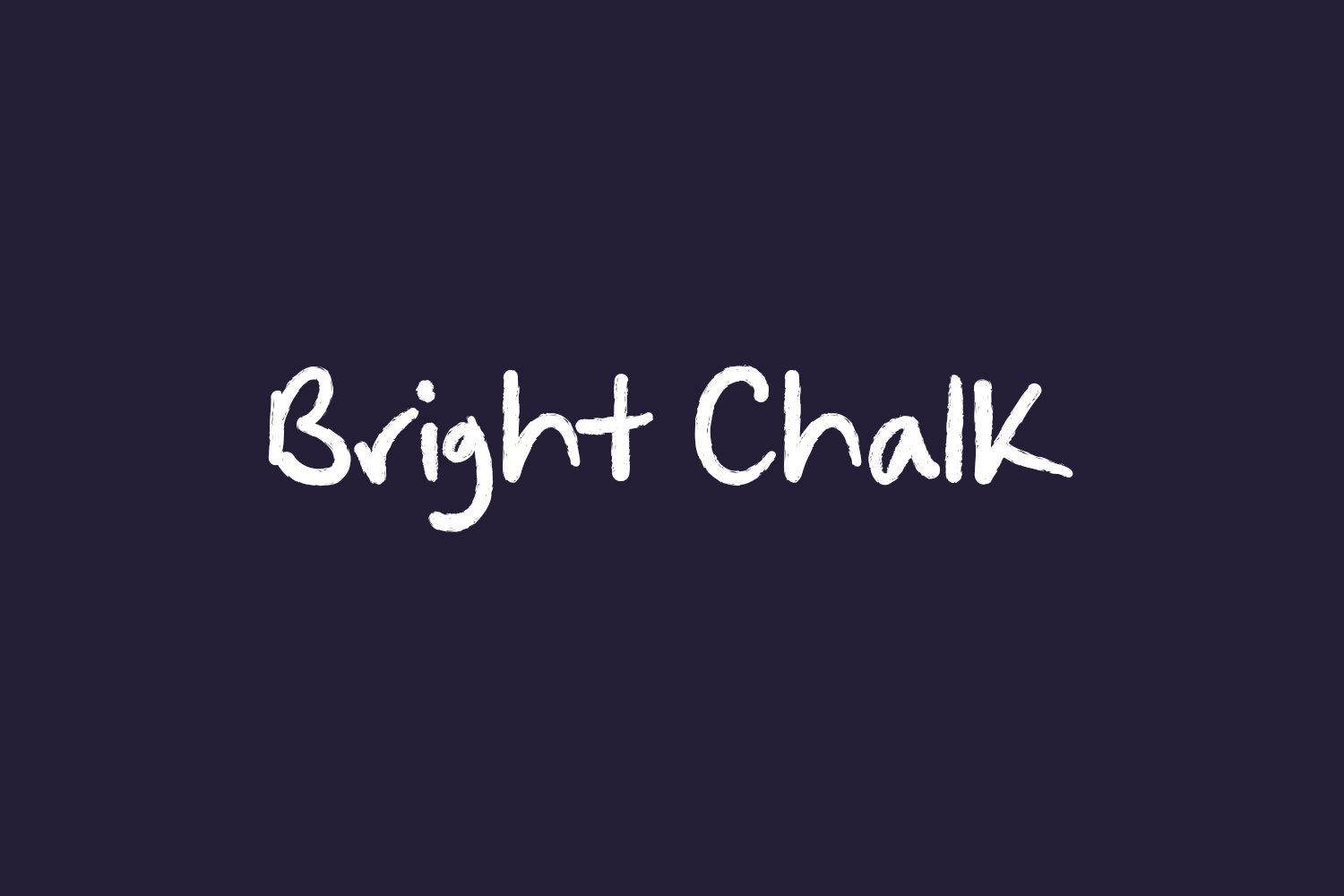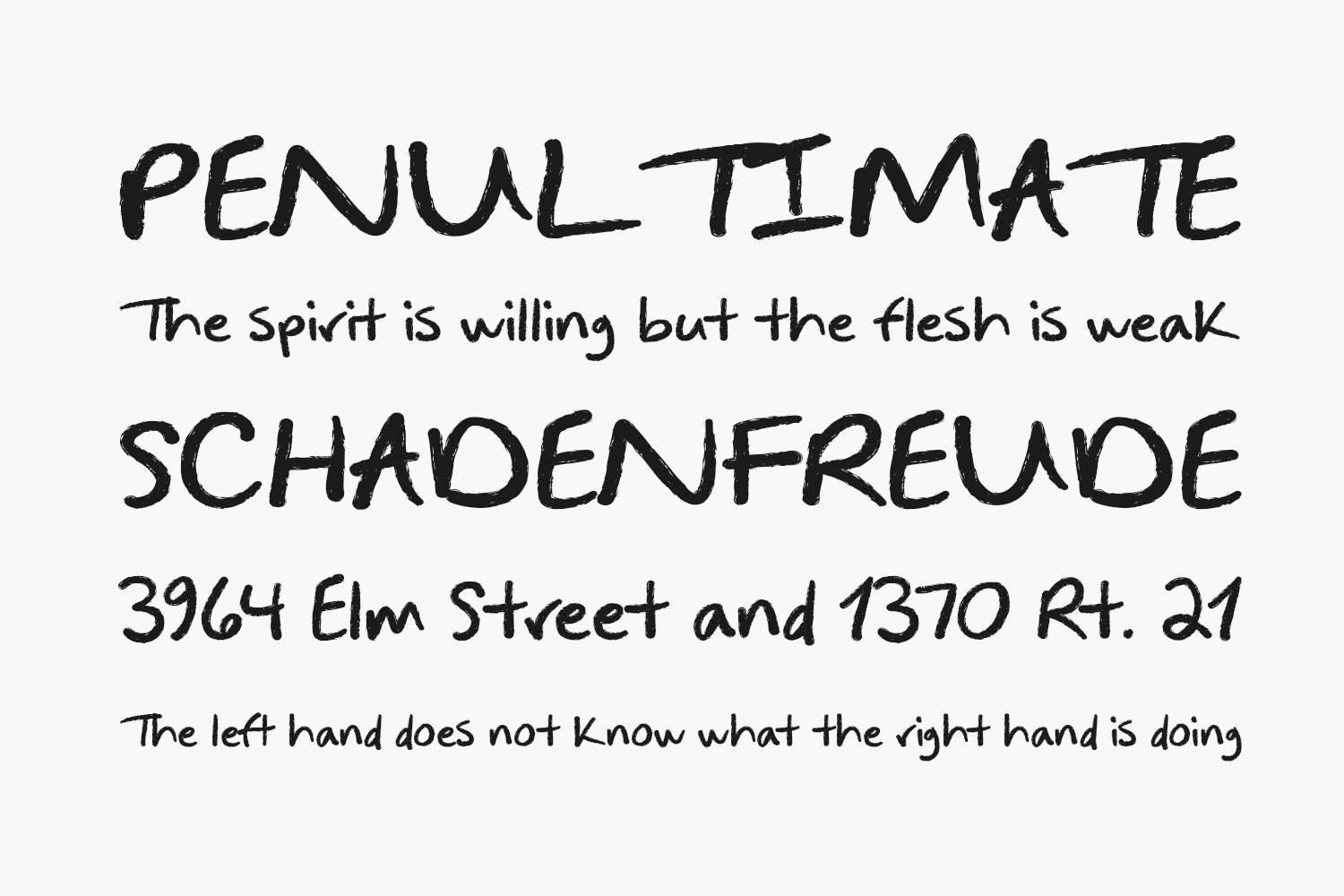
Bright Chalk Free Font is a lively and playful font that embraces the charm of chalk lettering. Its rugged, natural typeface showcases distinct letterforms, igniting creativity and artistic flair. The irregular lines and imperfect edges impart a hand-crafted quality, ideal for infusing character into your designs. Whether crafting a poster, logo, or social media graphic, Vivid Chalk undoubtedly commands attention. With its captivating look and adaptable design, this font is an essential choice for designers seeking to infuse a dash of playfulness into their projects. Bright Chalk Free Font is free for personal use only. Please purchase the full version for commercial use.
Designed by Misti's Fonts